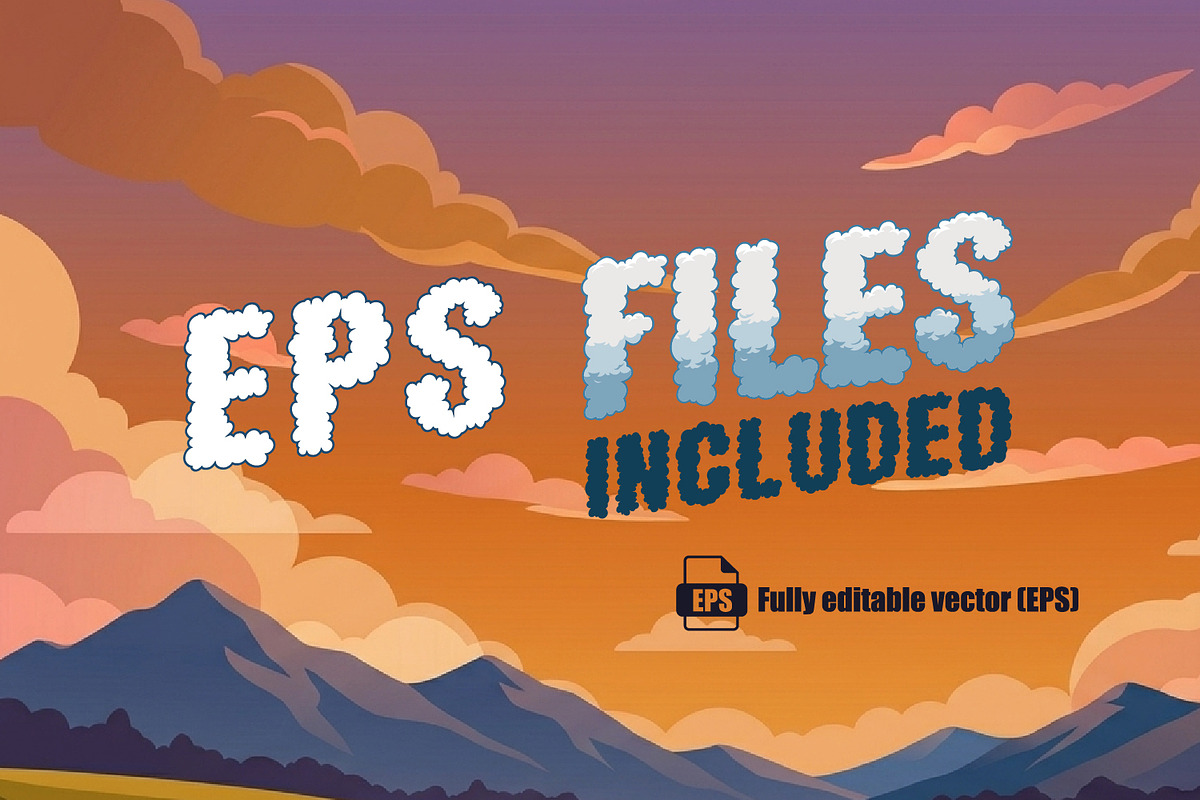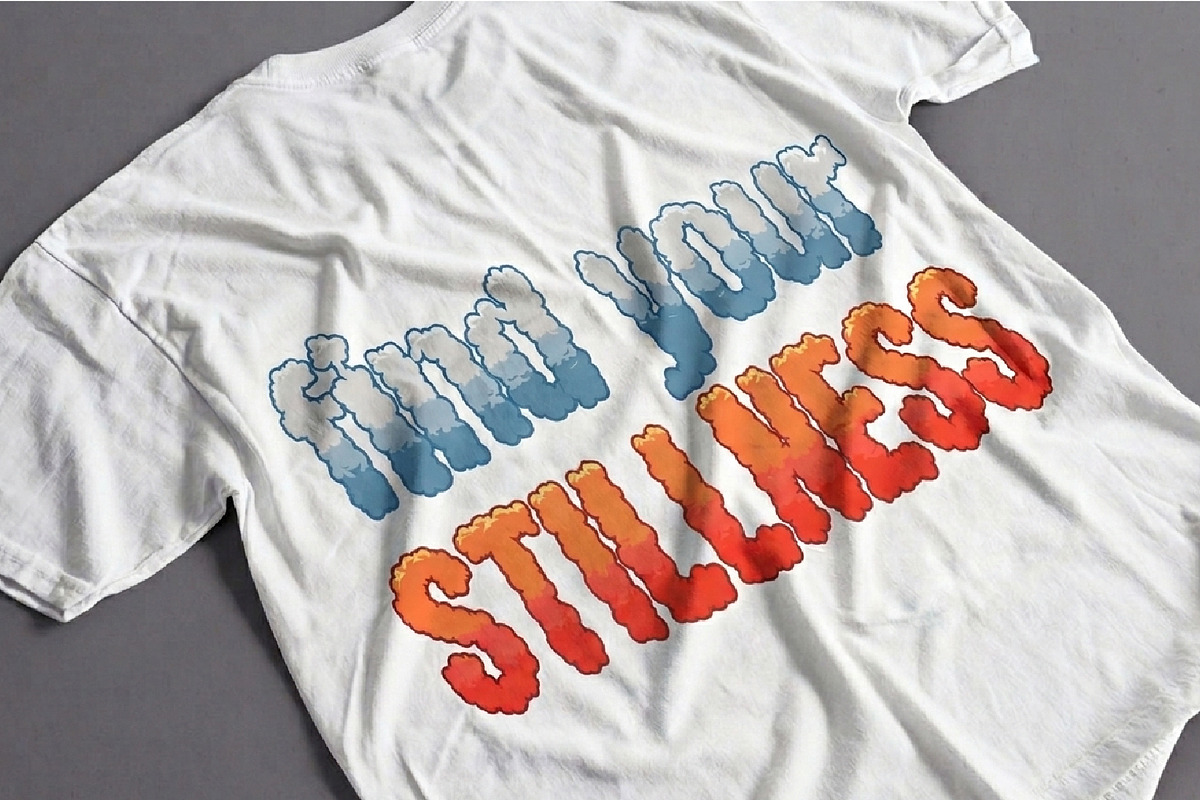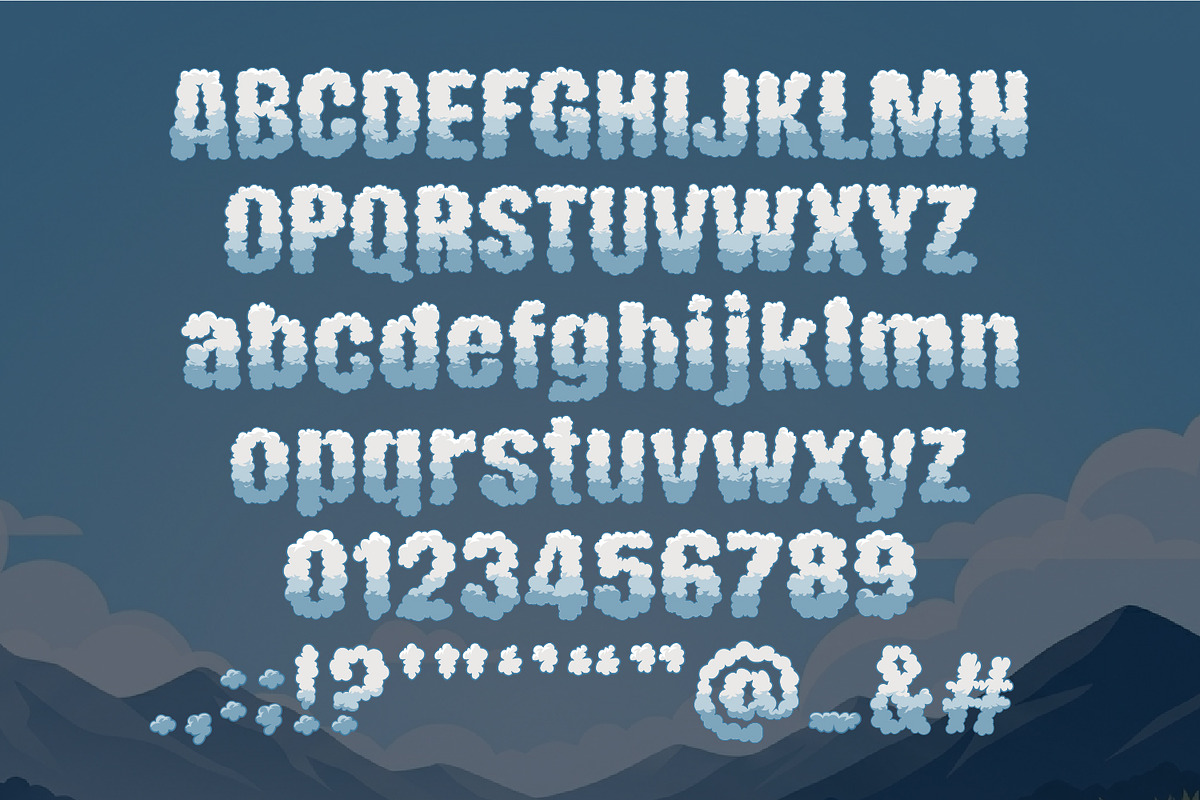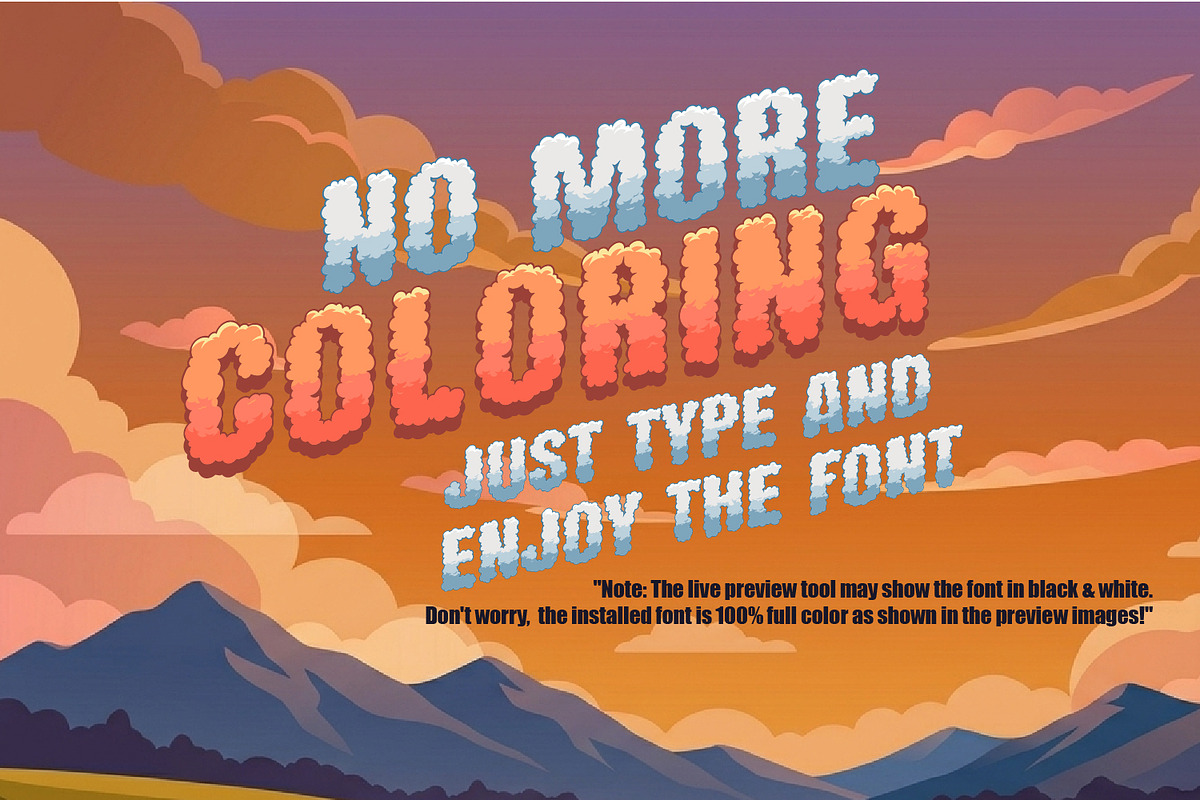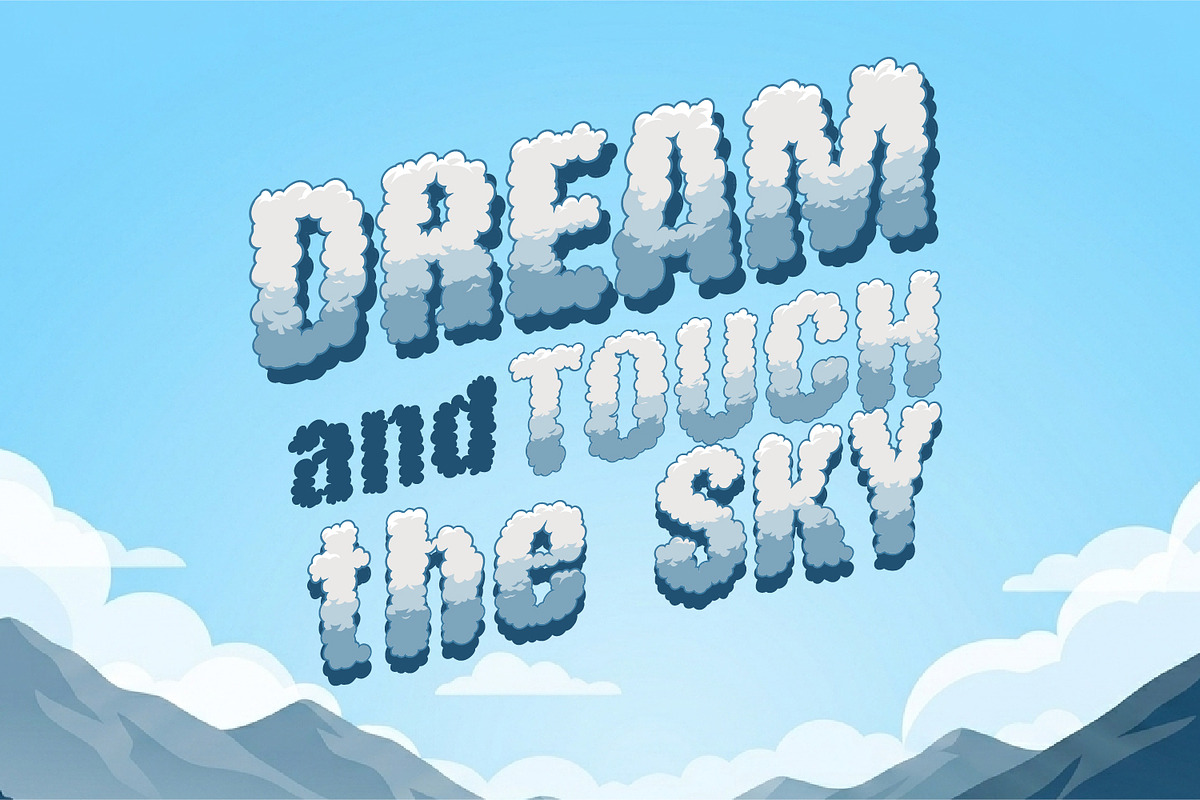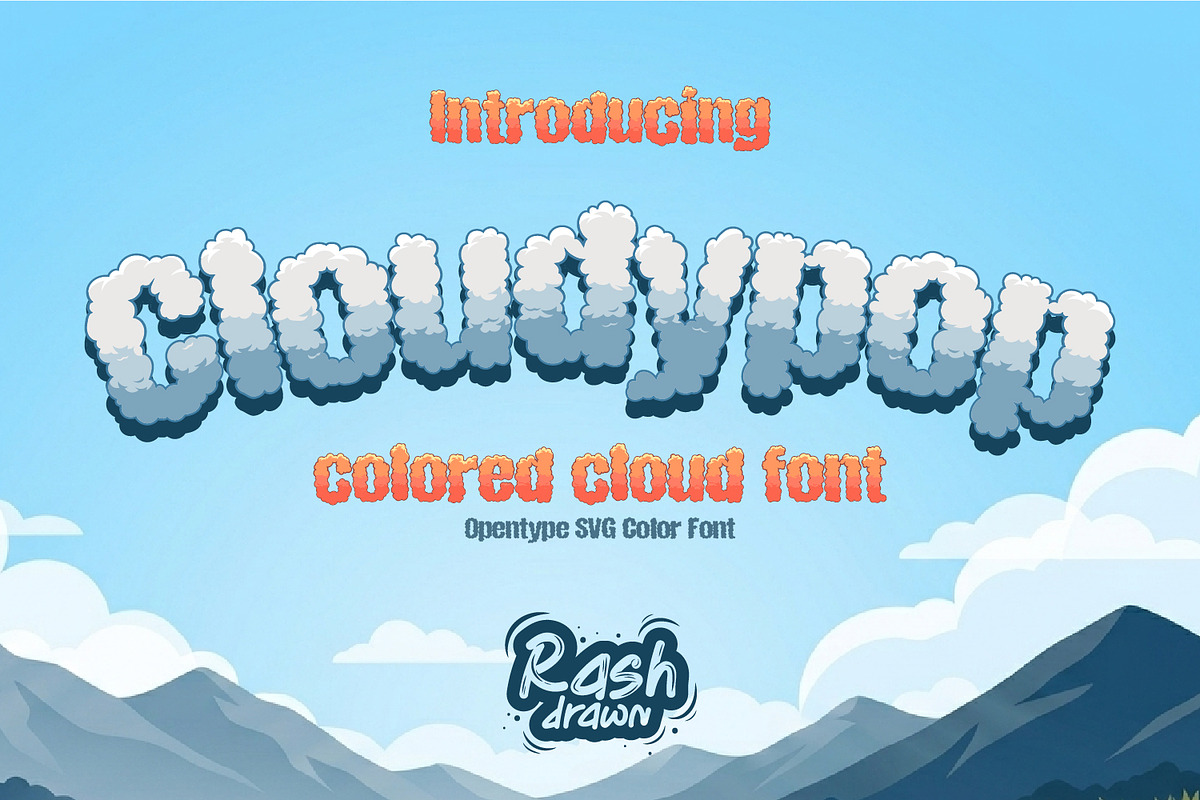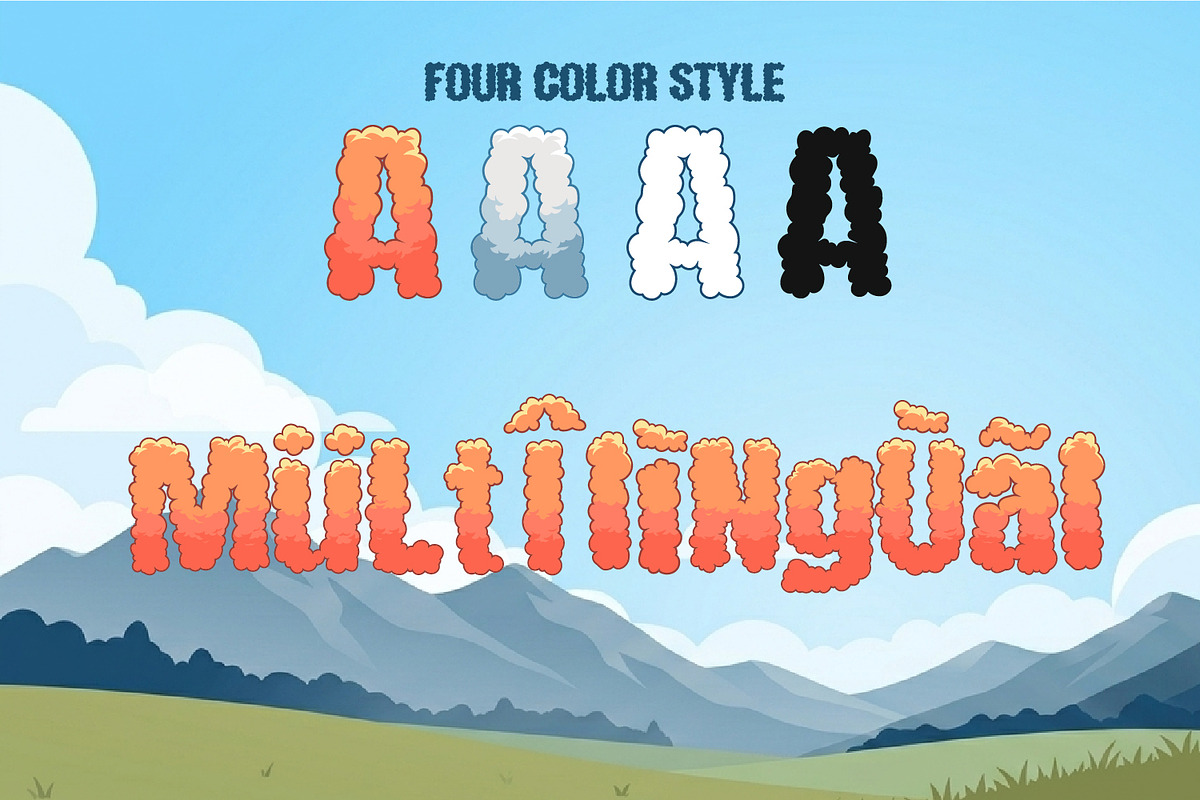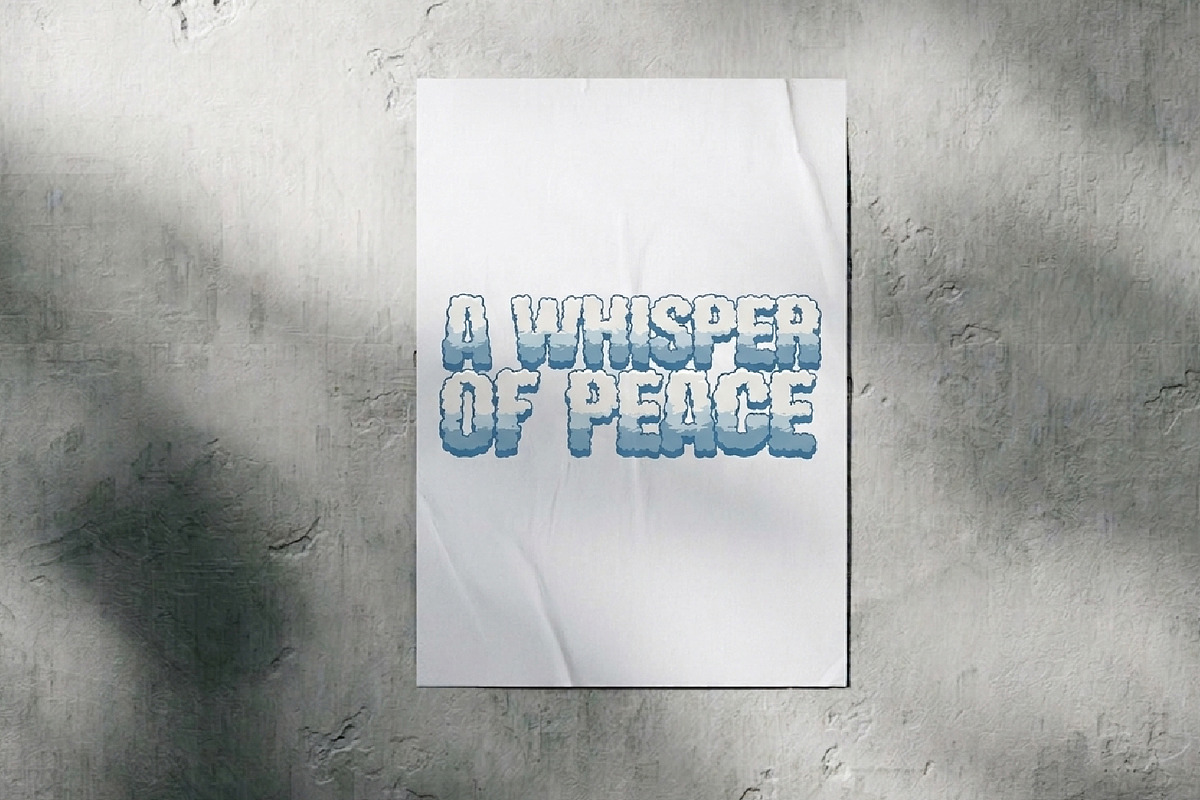
Cloudypop
Cloudypop -Colored Cloud Font Introducing Cloudypop, a vibrant and playful Opentype SVG Color Font with 4 built-in, ready-to-use color styles. Each character is a soft, hand-drawn cloud puff with beautiful pre-integrated gradients.
Instant Color - No Styling Required!
Just select the style and go! Perfect for: Children's Books & Toy Branding Greeting Cards & Stationary Apparel Graphics (T-shirt prints) Nature-Themed Posters & Flyers
Hand-Drawn Cloud Texture: A unique, soft, and playful aesthetic.
Simplicity meets creativity. Touches the sky and find your peace with Cloudypop! Ready to bring a dreamlike stillness to your designs